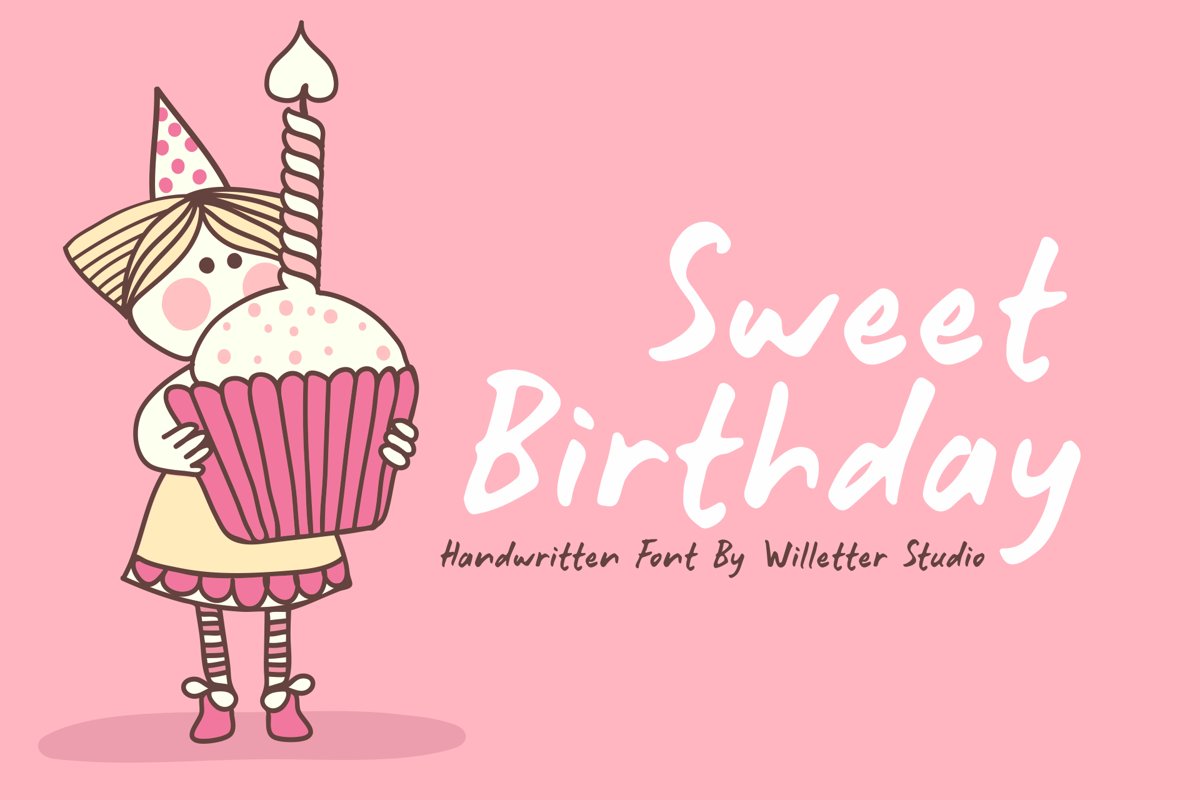
Sweet Birthday
sweet birthday
Sweet Birthday
is a very natural handwritten font, perfect for your projects with a cheerful theme, kids, snacks, packaging, etc.
Willetter Studio